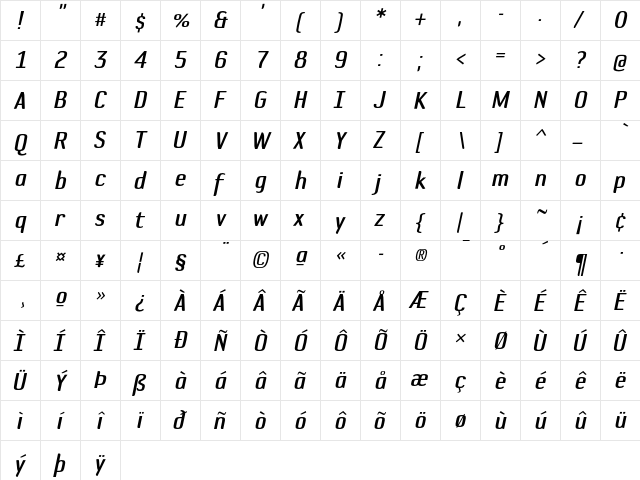
DefaultGothic-CGauge Italic Font Preview
DefaultGothic-CGauge Italic
Design Context for DefaultGothic-CGauge Typeface
DefaultGothic-CGauge takes a clean, functional approach — its unadorned letterforms prioritise legibility and work reliably across screen and print environments. The dynamic lean of this cut emphasises speed and emphasis in any layout.
Font Pairing: Works well alongside a characterful serif or display font that can carry the expressive load while DefaultGothic-CGauge handles the functional copy.
Pro Tip: Use DefaultGothic-CGauge for UI labels, navigation, and short-form body copy where clean legibility is the priority.